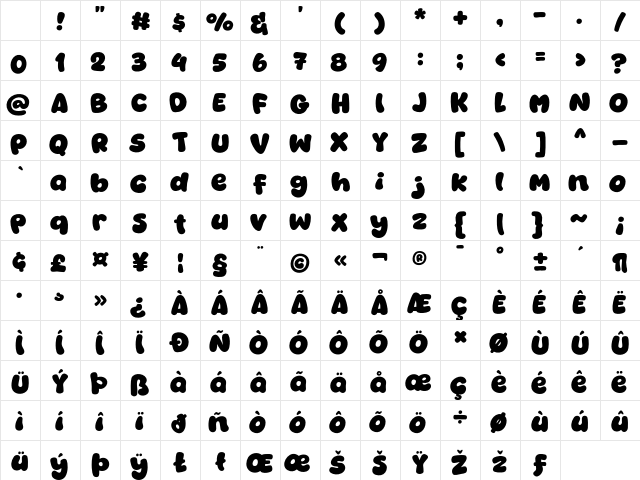
Complete Matcha Cih Regular glyph index. Displaying only characters natively supported by Matcha Cih Regular font.
Matcha Cih is a composed and adaptable typeface that performs quietly and consistently across a wide range of design contexts.